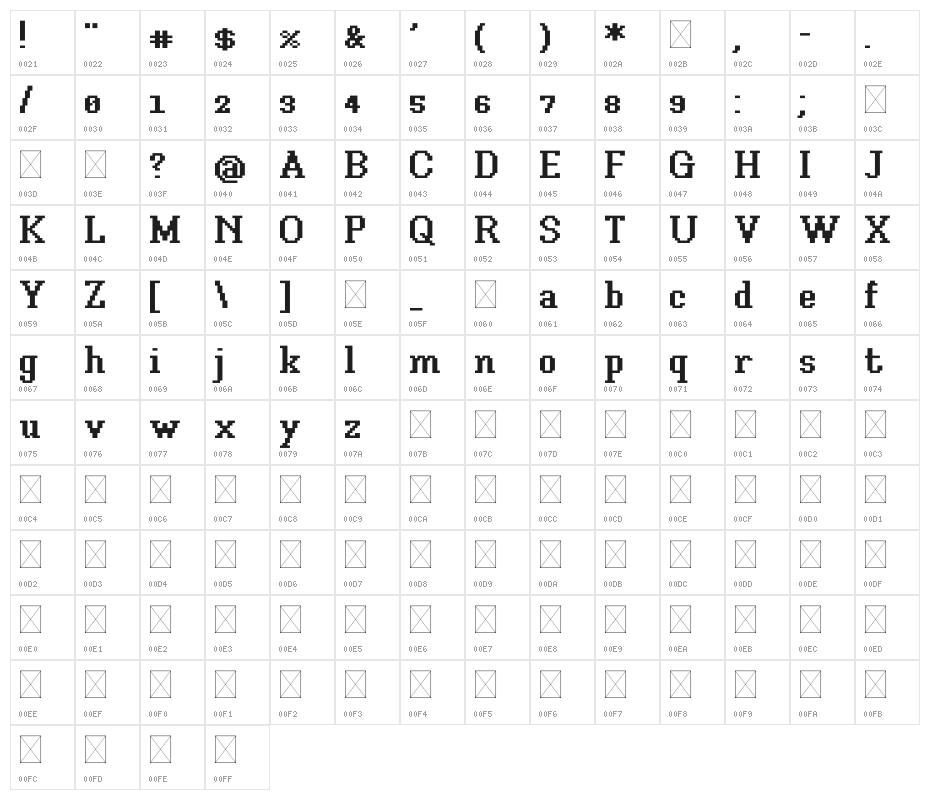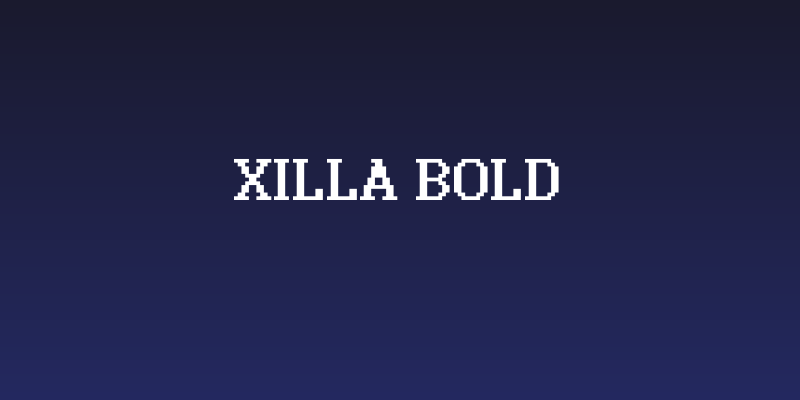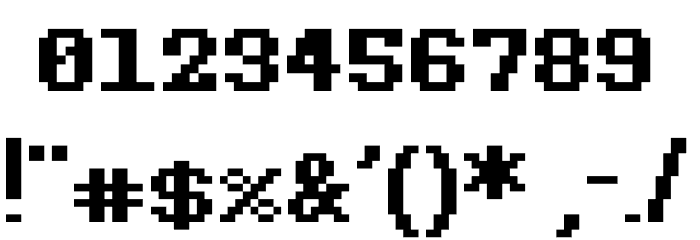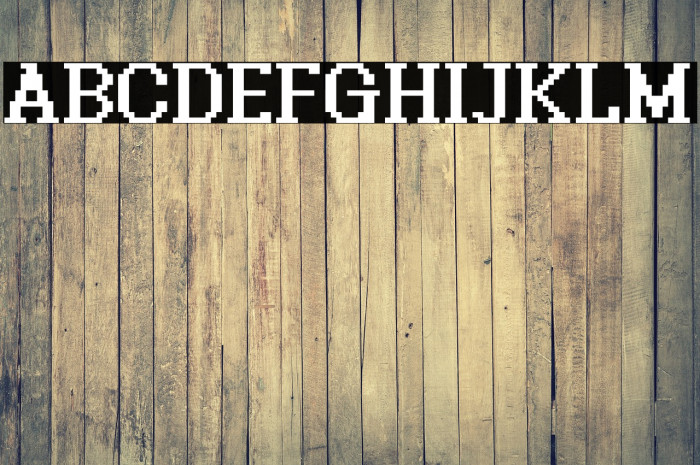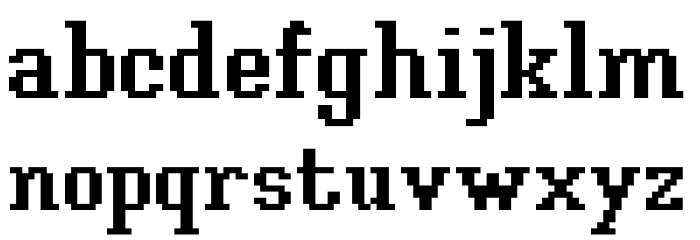
Xilla Bold Font
Xilla Bold Description
This font features a bold, pixelated style reminiscent of early digital typography. The characters are blocky and robust, with a consistent stroke width that gives it a strong, impactful presence. The uppercase and lowercase letters maintain a uniform height, contributing to a cohesive and structured appearance. The numerals and special characters follow the same design principles, ensuring a harmonious look across all elements. Its retro aesthetic makes it ideal for projects that require a nostalgic or digital theme.
| Proposed Projects | Ideal for video game graphics, retro-themed posters, digital art projects, and tech-related branding. |